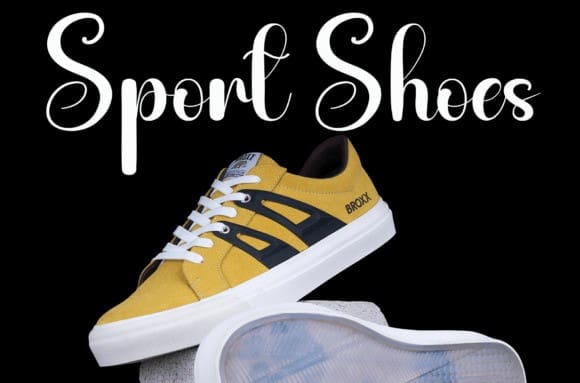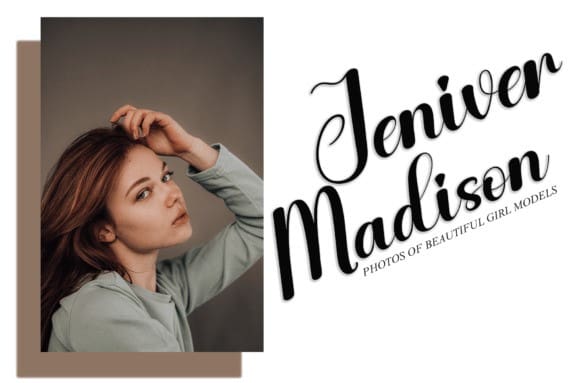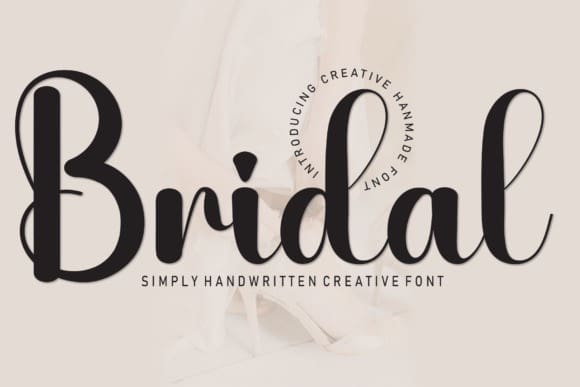
Bridal Script Font
Bridal Script Font, is a sweet and friendly handwritten font. Fresh and neat, this font is ideal for writing wedding invitations, cards, or any other design that might need a fun touch!